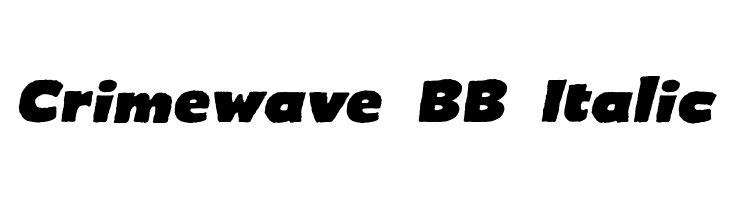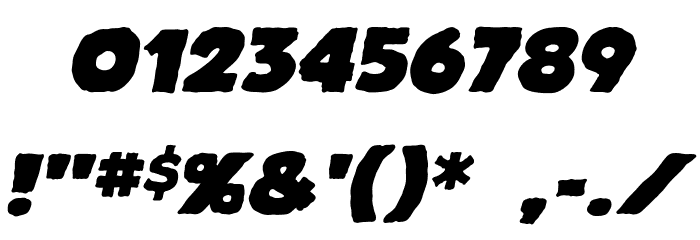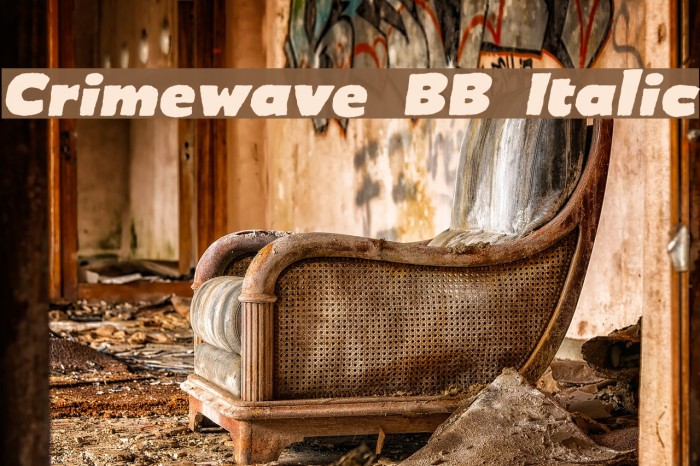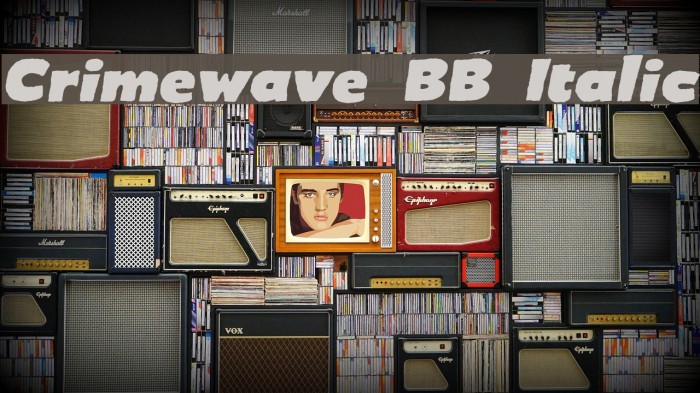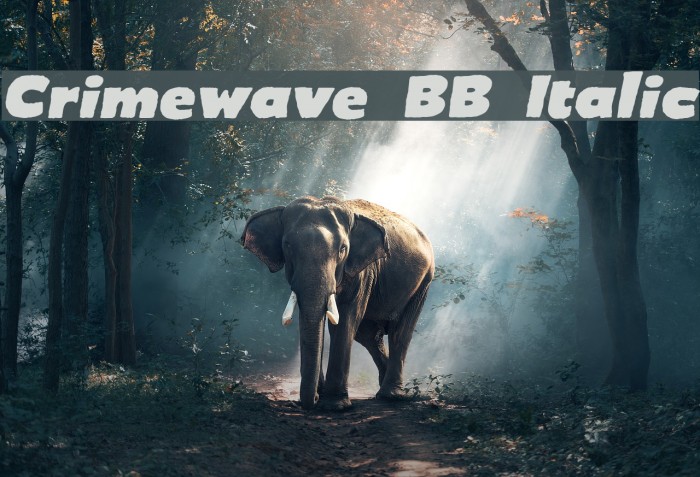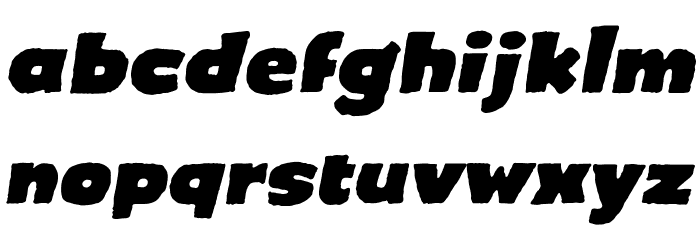
Crimewave BB Italic Font
Crimewave BB Italic Description
This font features a bold and dynamic style with a distinct italic slant, giving it a sense of movement and energy. The characters are thick and robust, with a slightly rough texture that adds a gritty, urban feel. The uppercase and lowercase letters maintain a consistent weight, providing a cohesive look across the alphabet. Numbers and special characters are equally bold, ensuring they stand out in any design. The overall appearance is striking and attention-grabbing, making it ideal for projects that require a strong visual impact.
A bold, italic font with a gritty, dynamic style from Uncategorized fonts.
- Proposed Projects: Ideal for posters, album covers, video game titles, and any design needing a bold, energetic look.